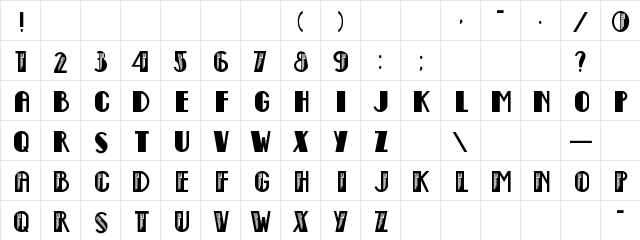
Empire State Deco Regular Font Preview
Empire State Deco Regular
Empire State Deco Regular Font Details
Design Context for Empire State Deco Typeface
Empire State Deco is a composed and adaptable typeface that performs quietly and consistently across a wide range of design contexts.